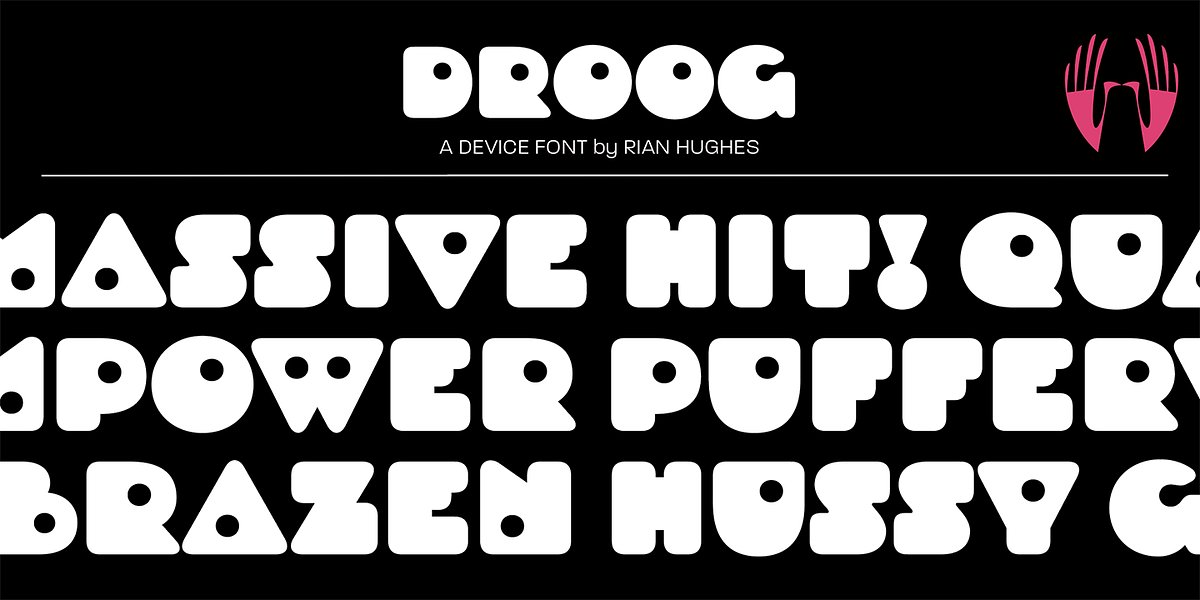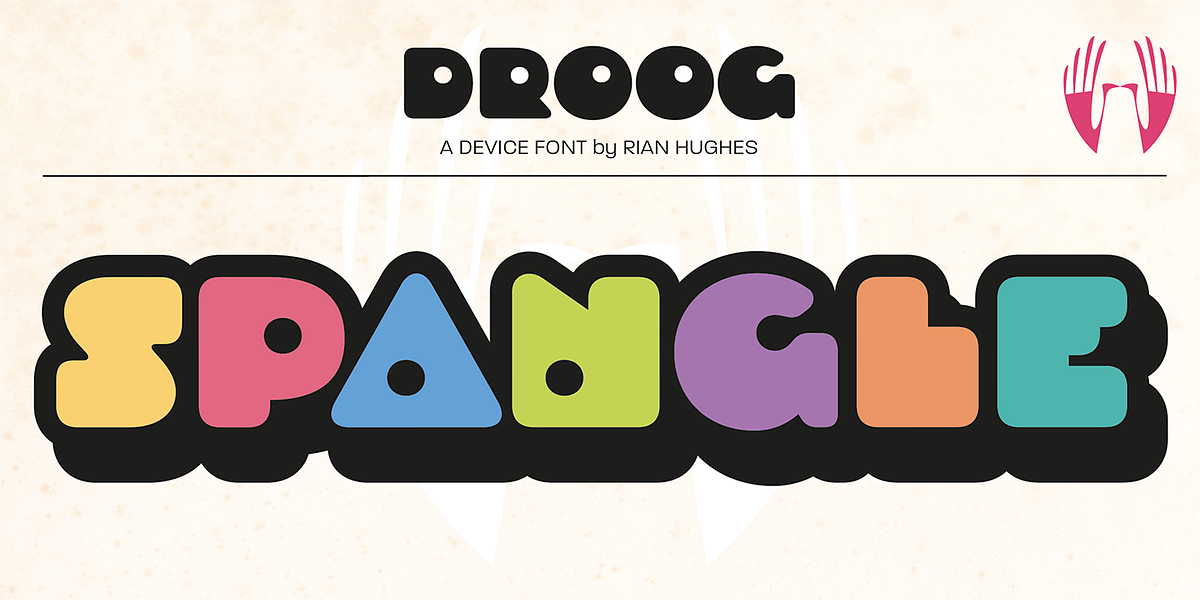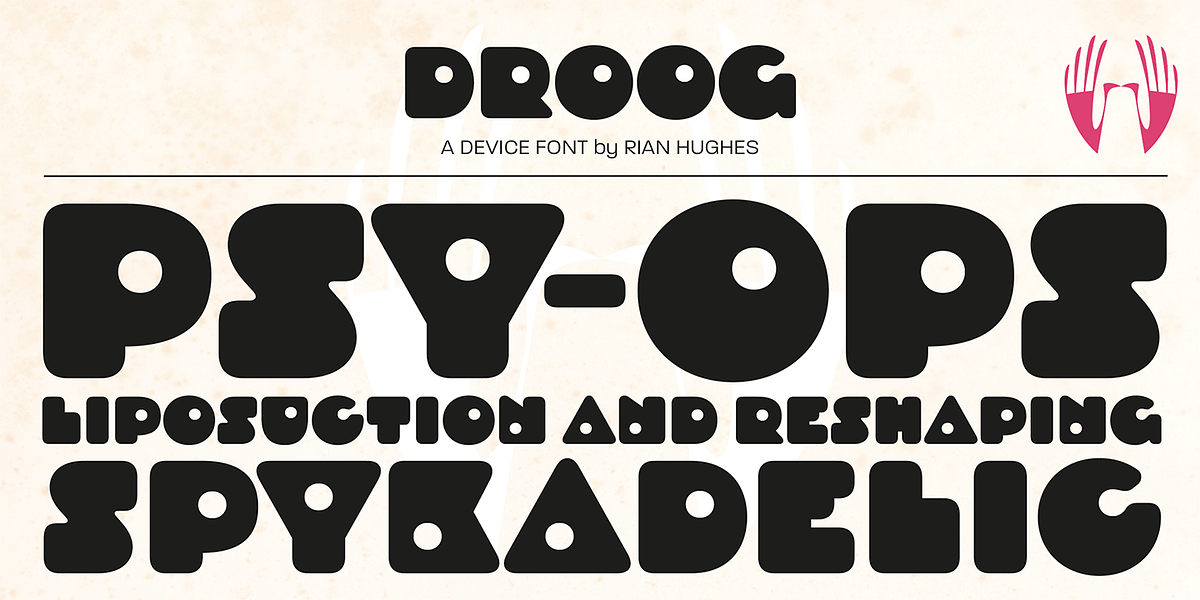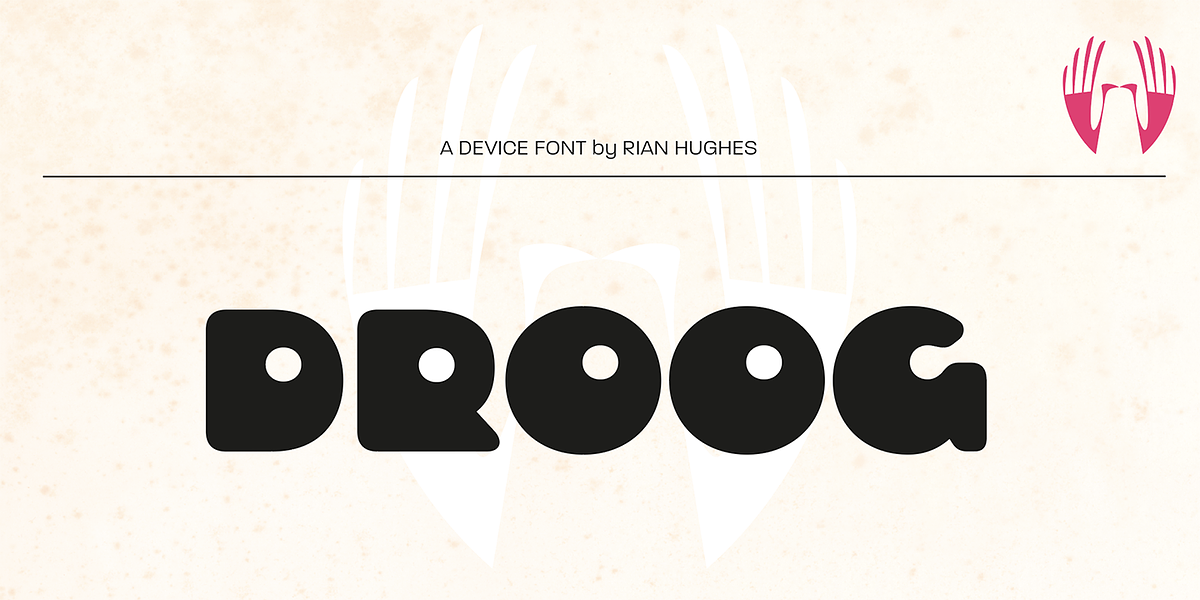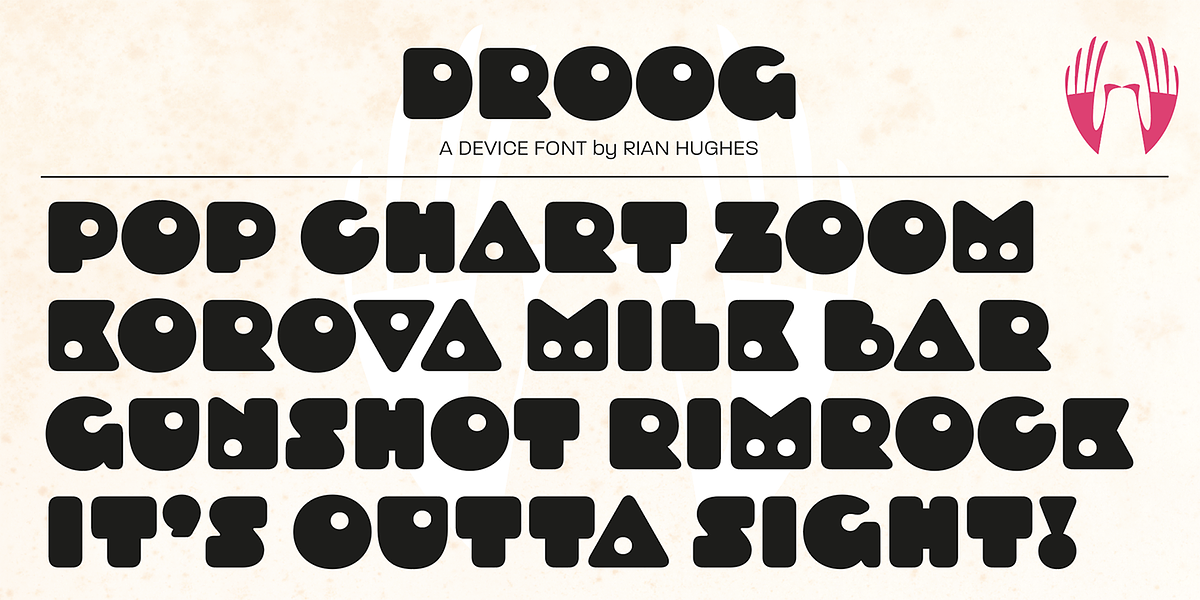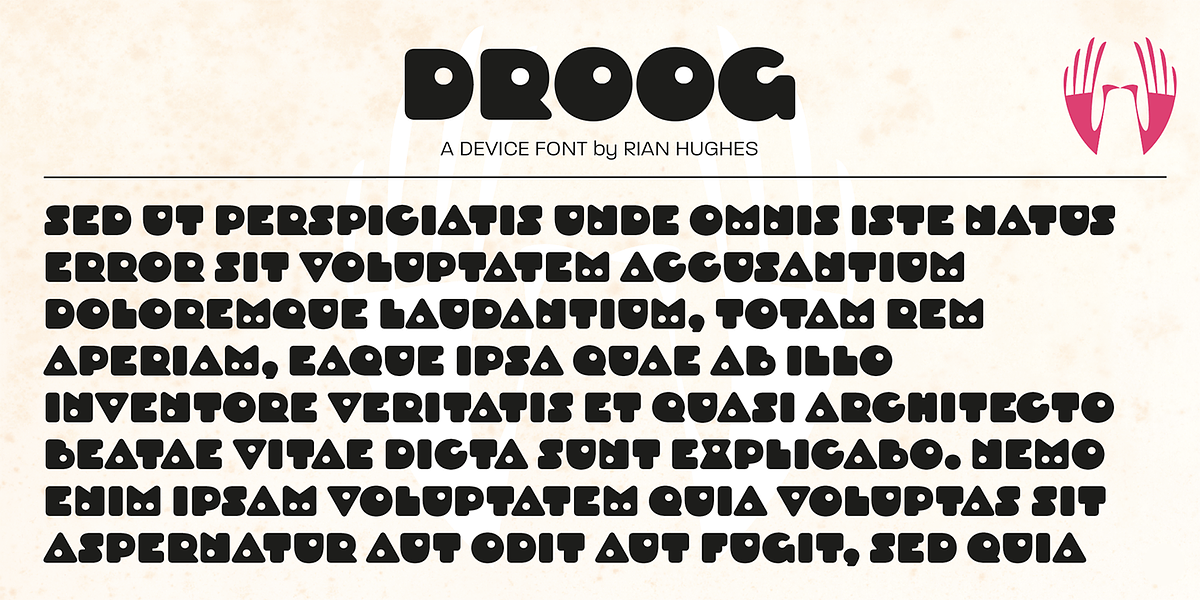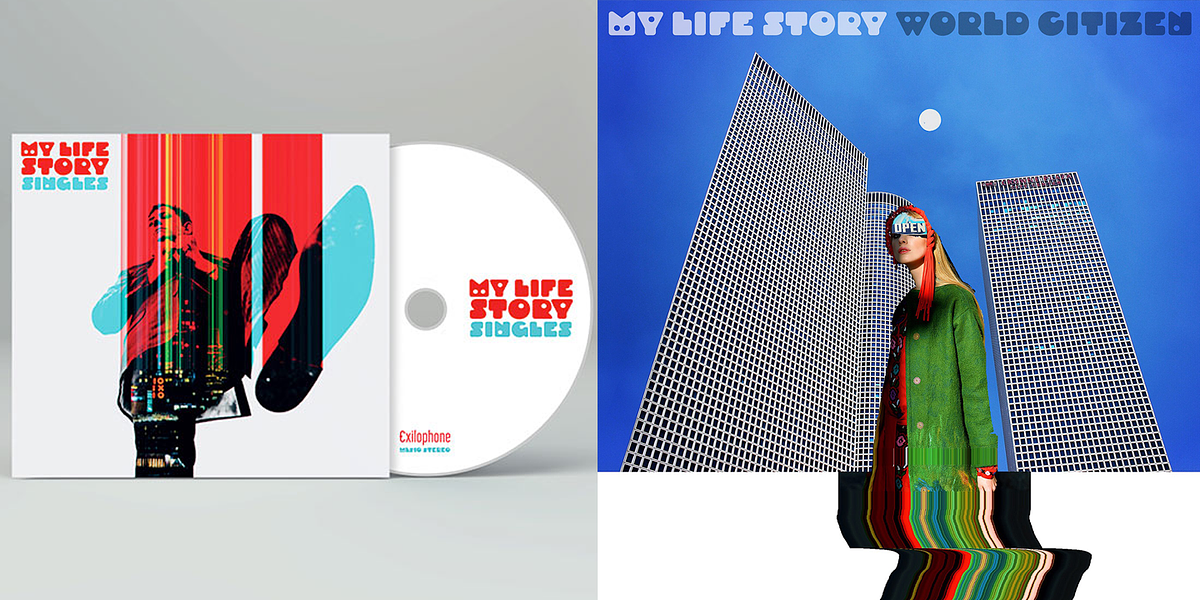
Droog
Droog is a distinctive display font characterized by its rounded letterforms and unique circular cutouts. These holes often replace traditional counters within letters, creating an eye-catching and unusual aesthetic. Its retro styling evokes the 1960s and 1970s, making it suitable for science fiction themes, branding projects seeking a playful or bold feel, and various display applications like posters and signage.